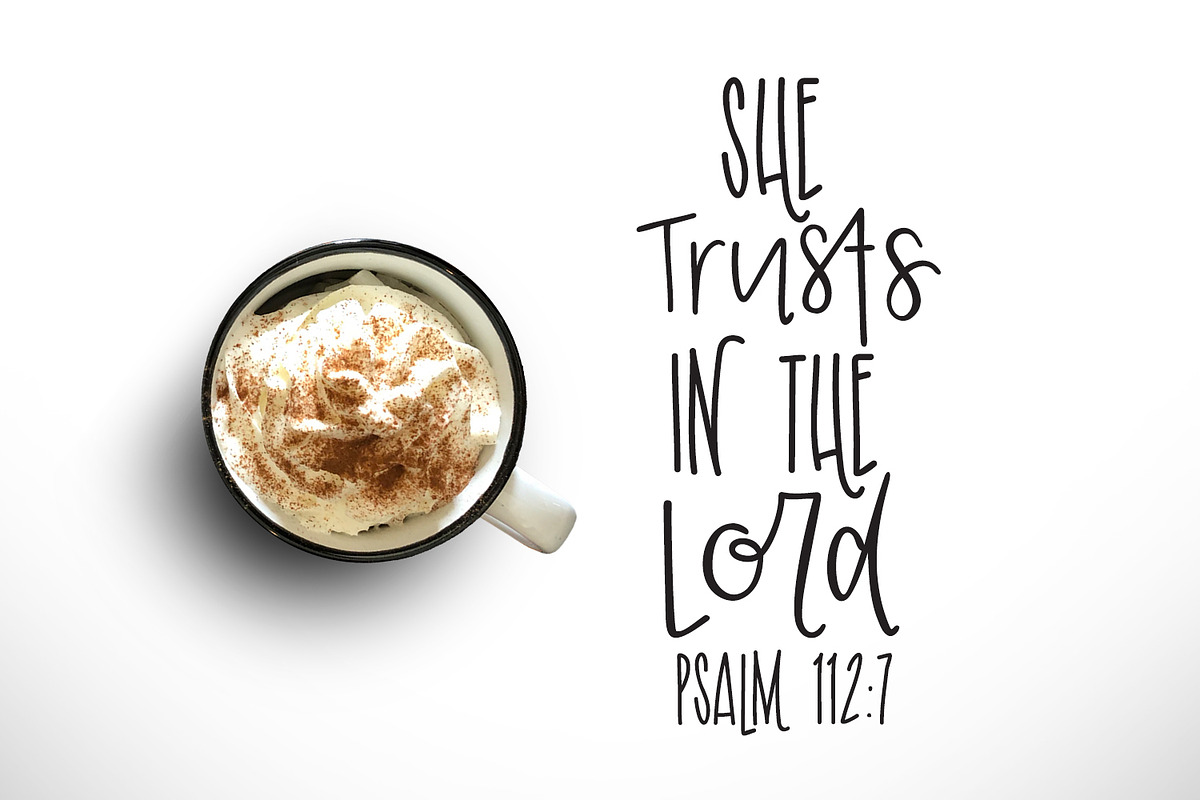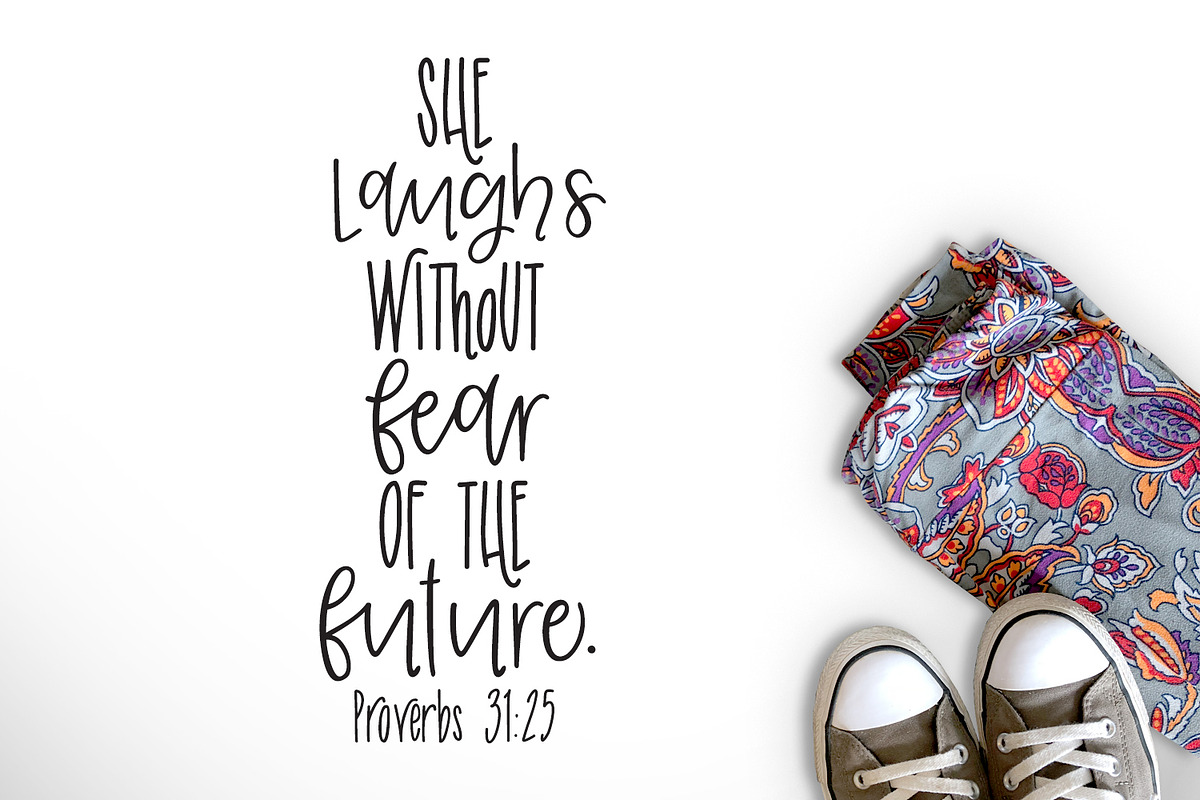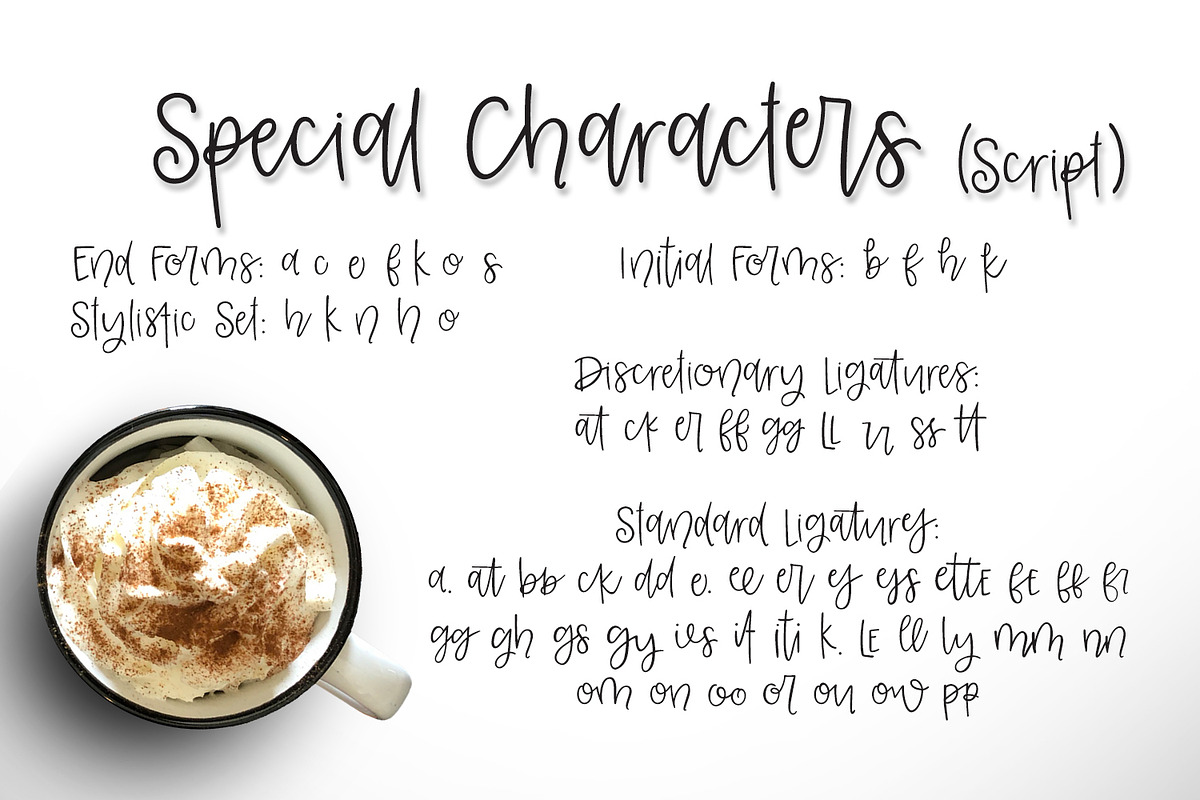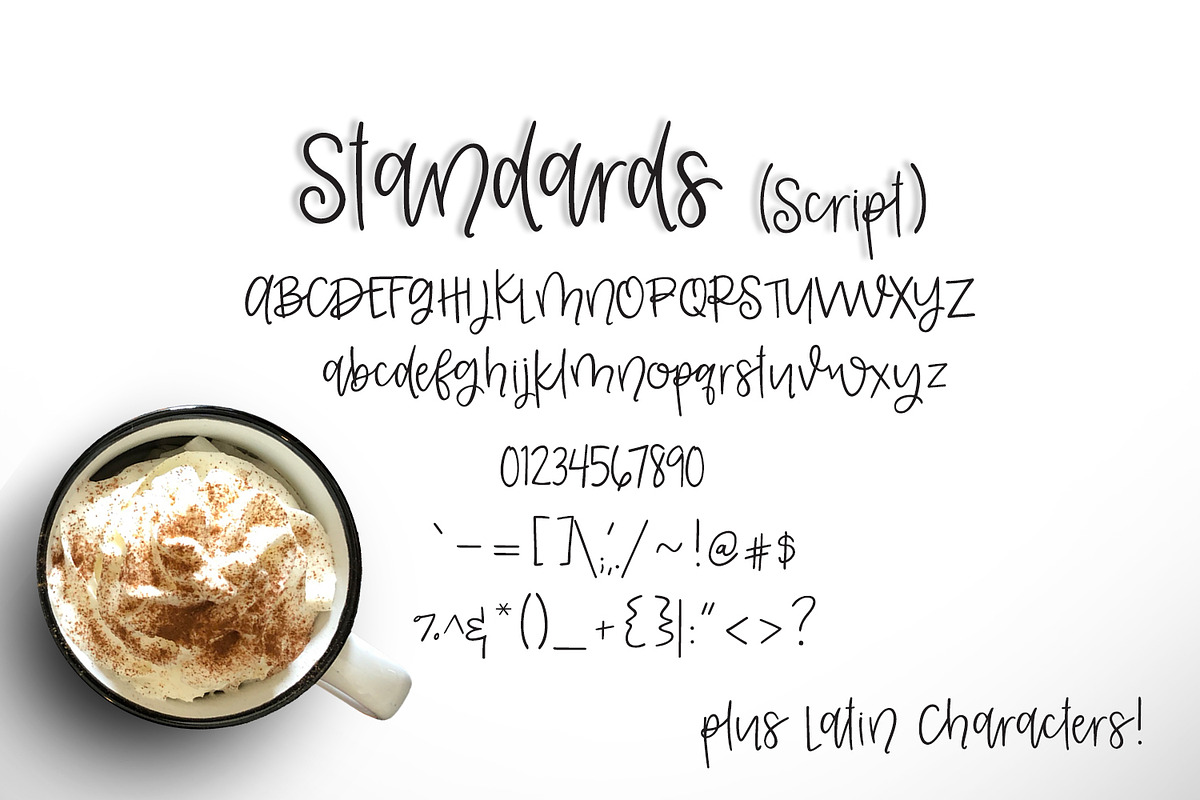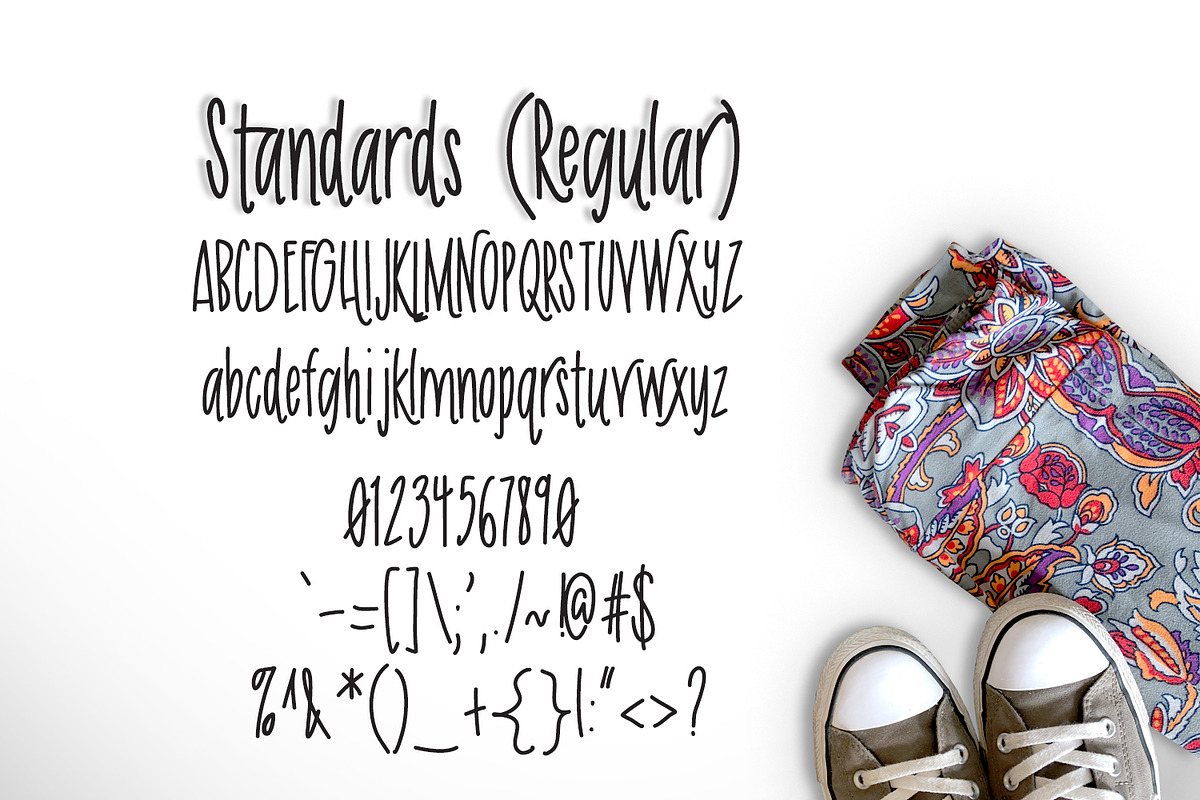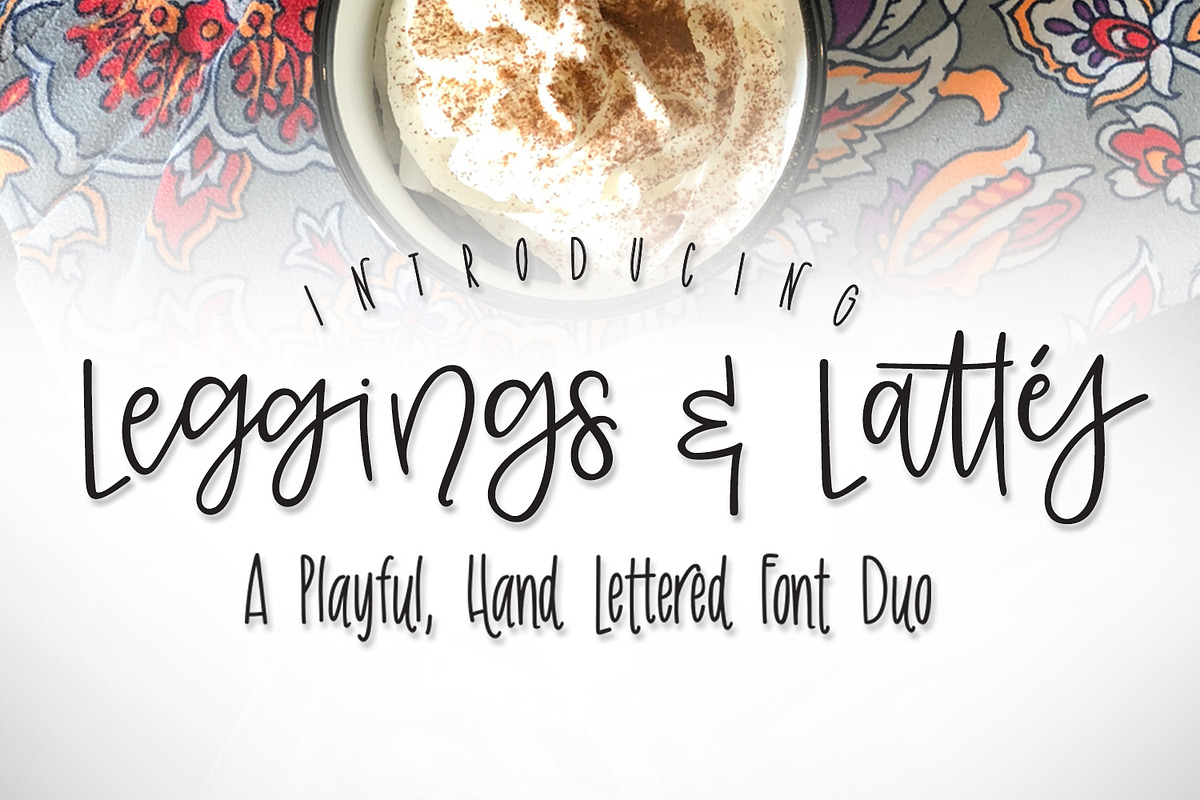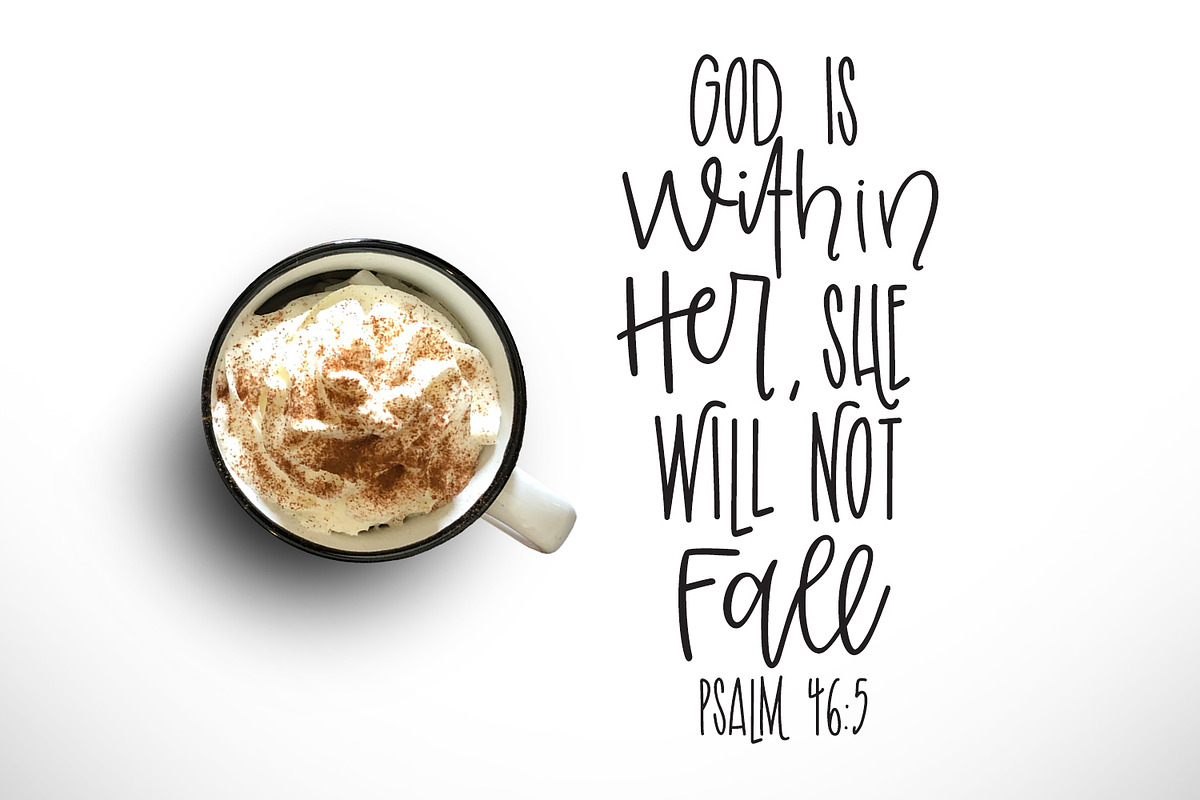
Leggins & Lattes Font Duo
A hand-lettered, hand drawn font duo, with lots of alternates so you can get that hand-lettered look & feel without even picking up your pencil!
- ALS Leggings & Lattes Script
- Leggings & Lattes Regular